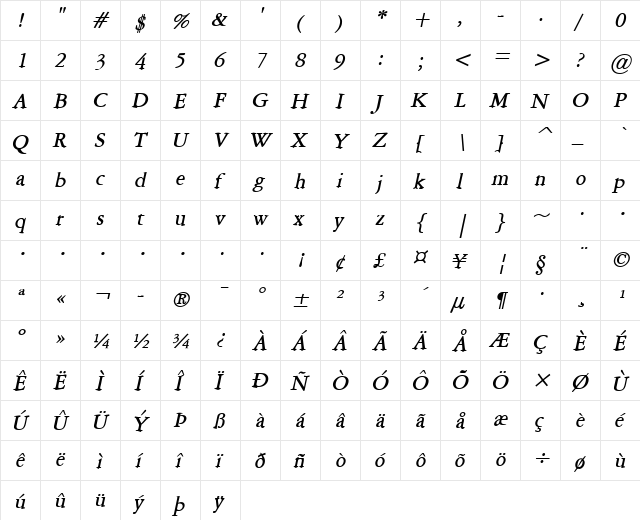
Amery-Condensed Bold Italic Font Preview
Design Context for Amery-Condensed Typeface
Amery-Condensed is a composed and adaptable typeface that performs quietly and consistently across a wide range of design contexts. The slanted form adds forward momentum and visual energy. Its bold stroke weight gives it real presence on the page. The condensed width makes it efficient for tight spaces without sacrificing legibility.
Pro Tip: Use Amery-Condensed for emphasis, pull quotes, and subheadings where its slanted energy can add rhythm to the layout.